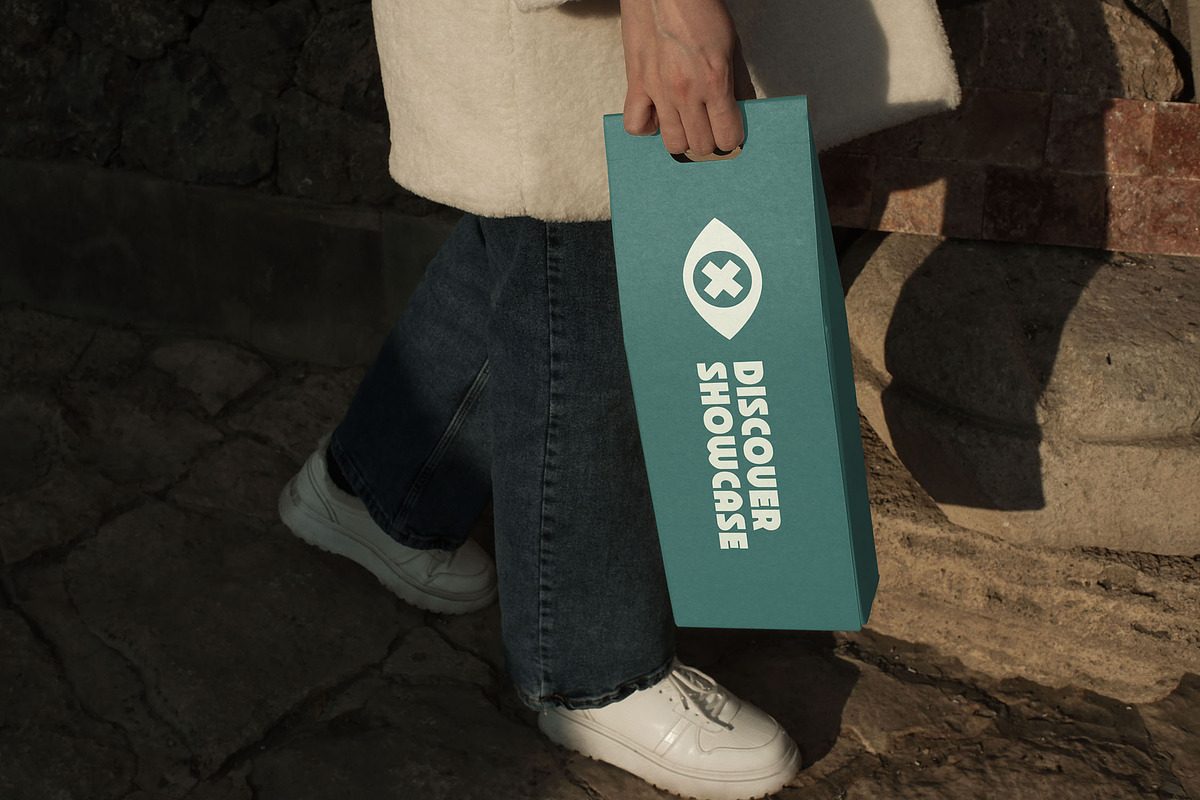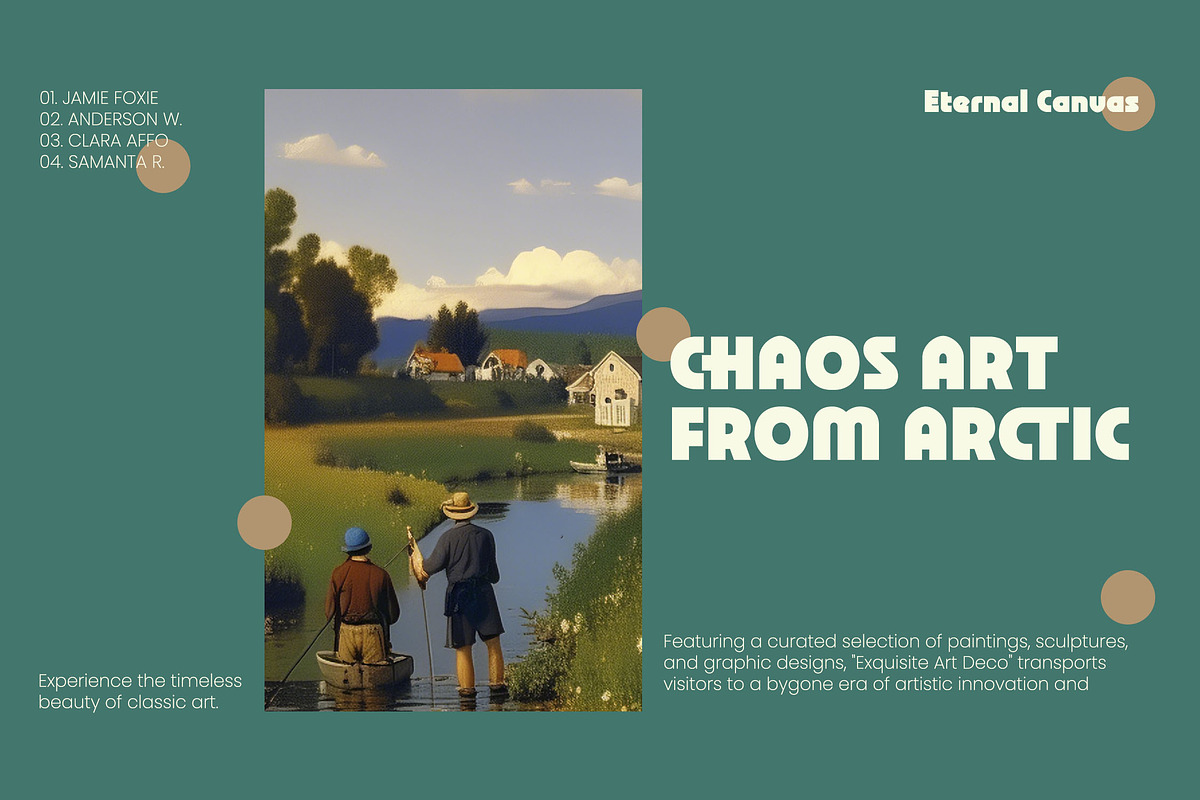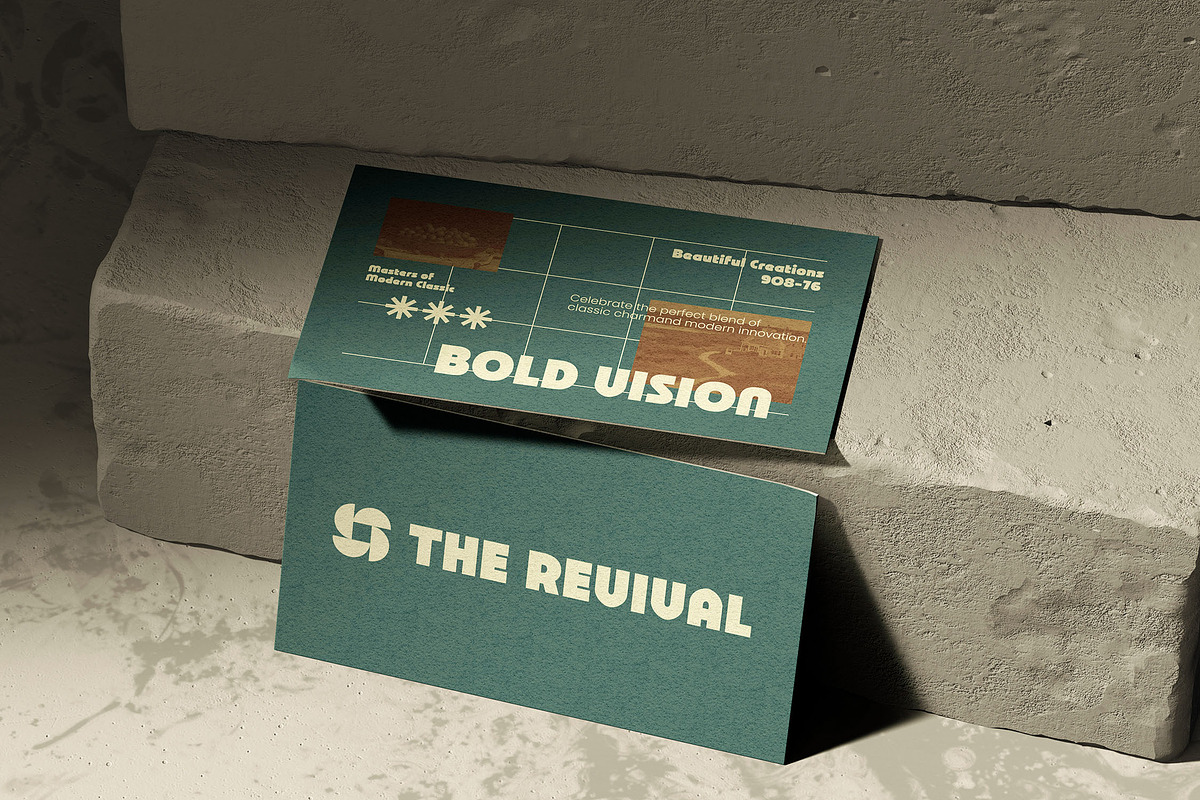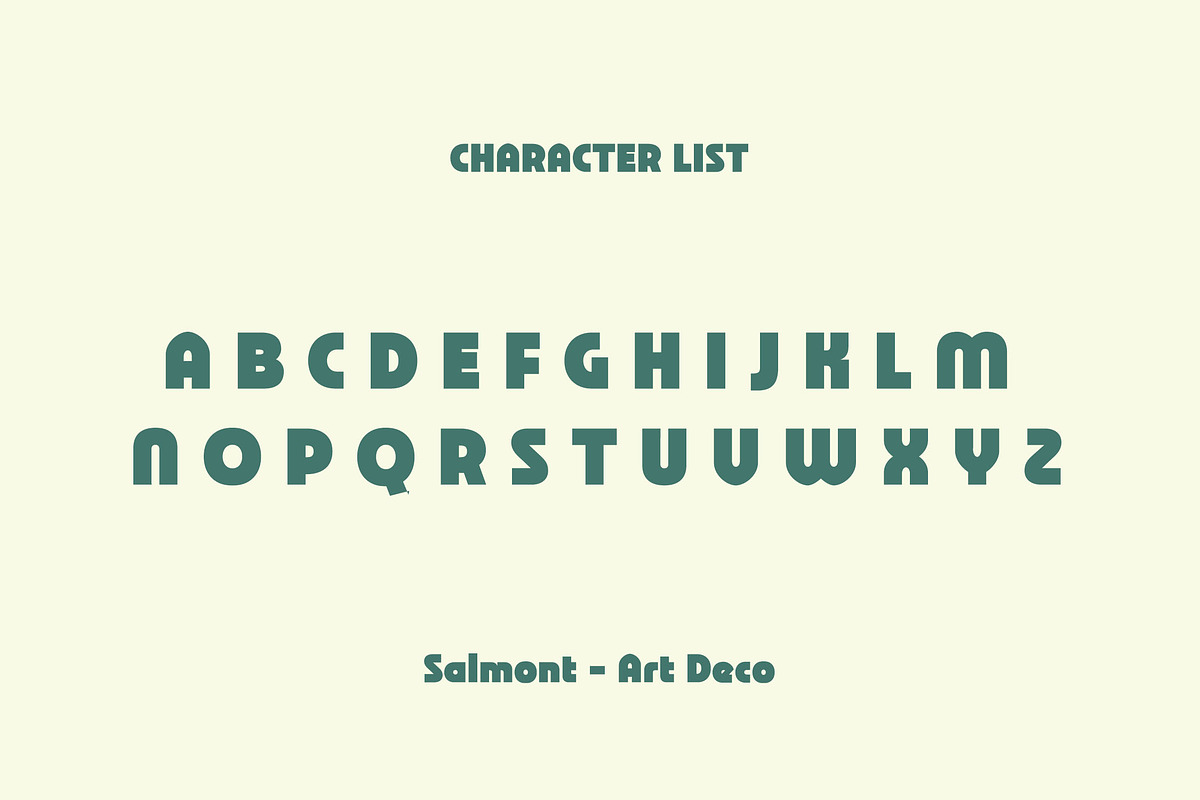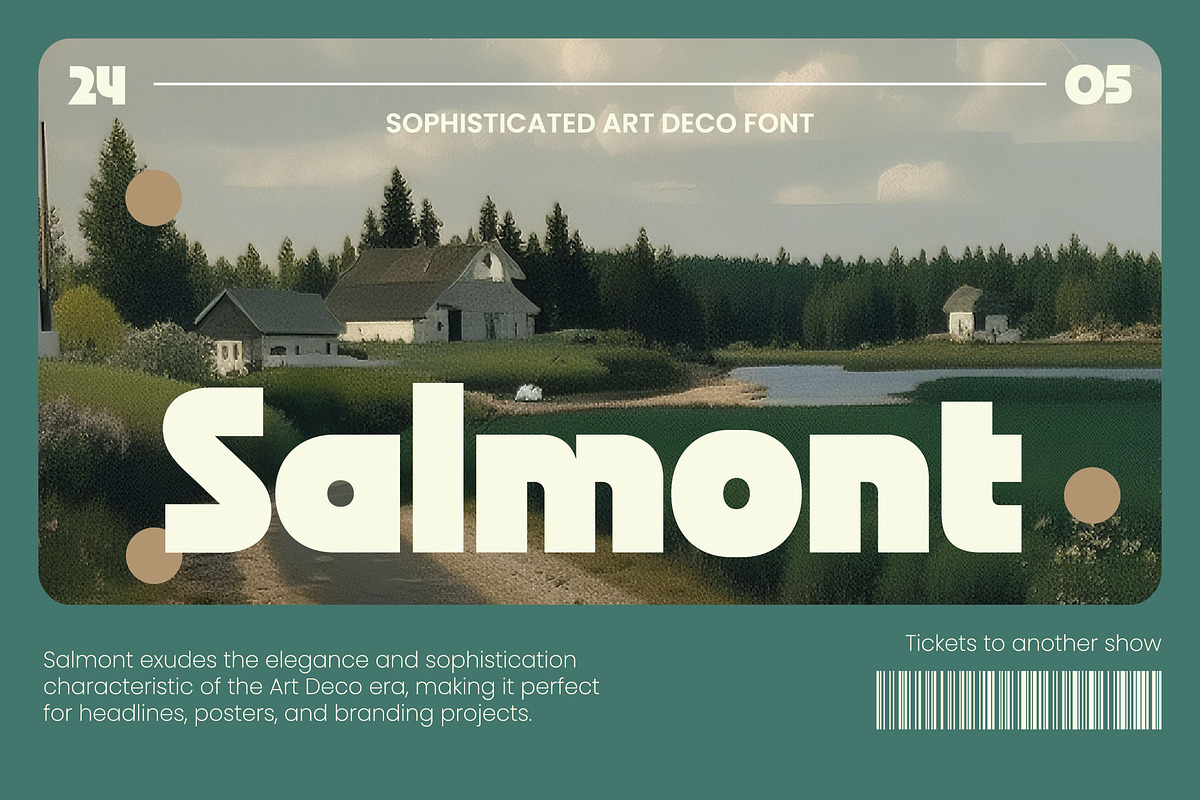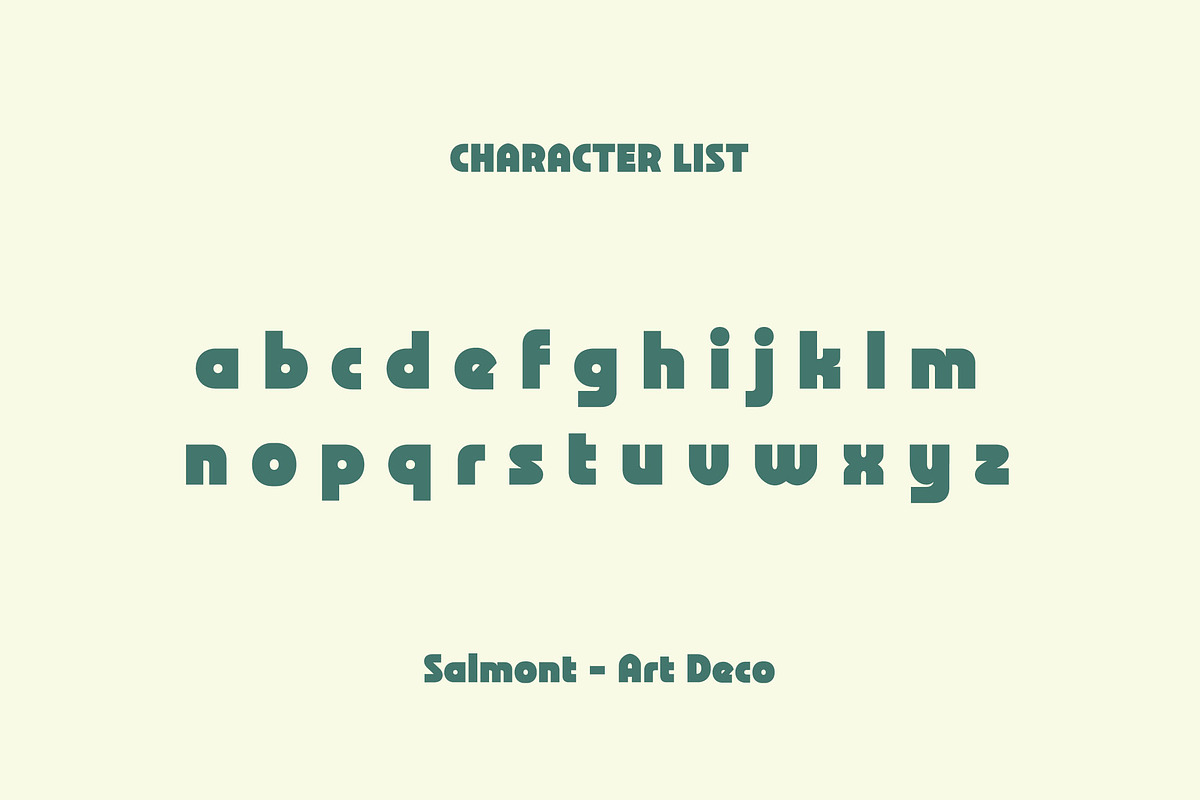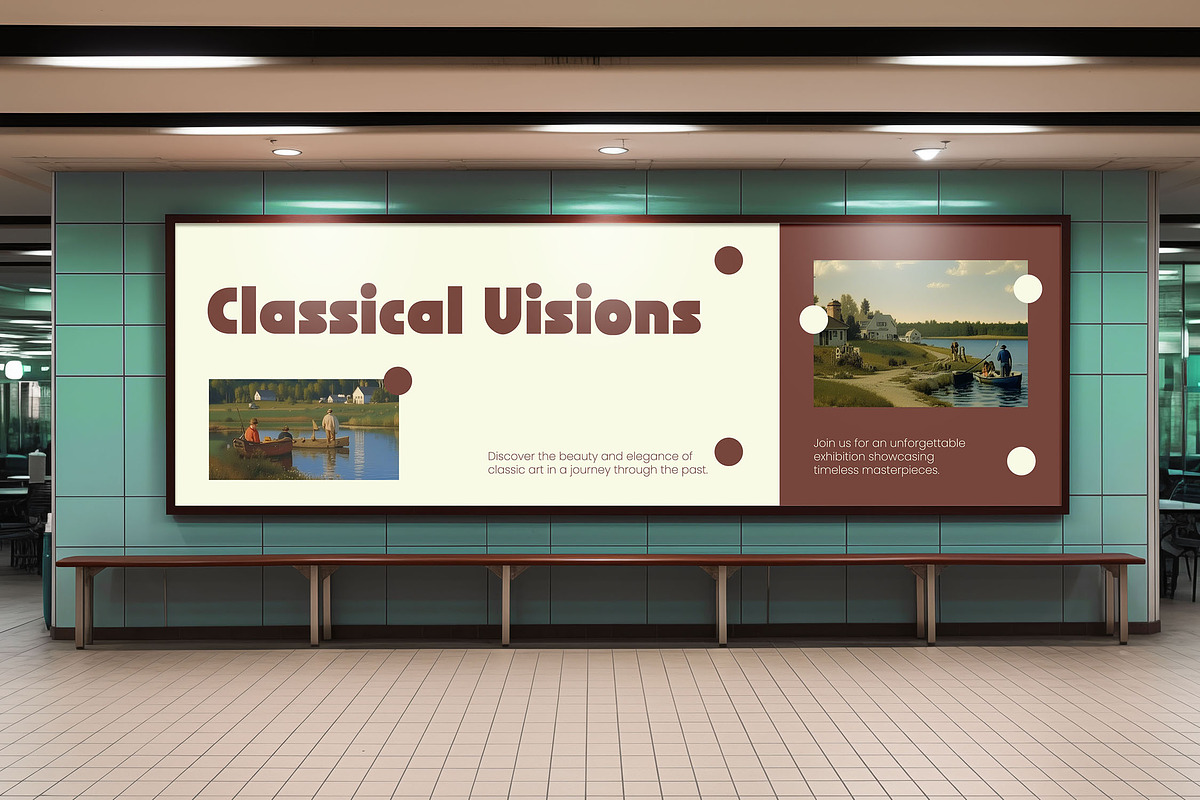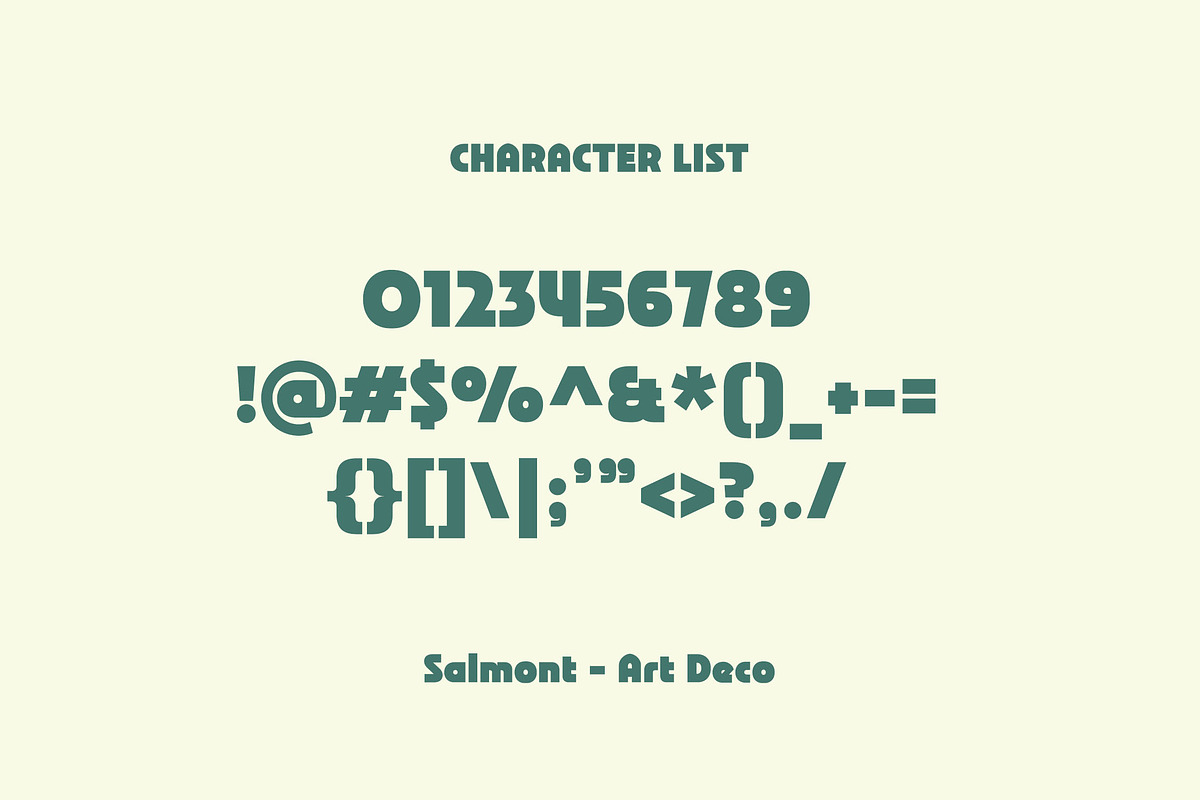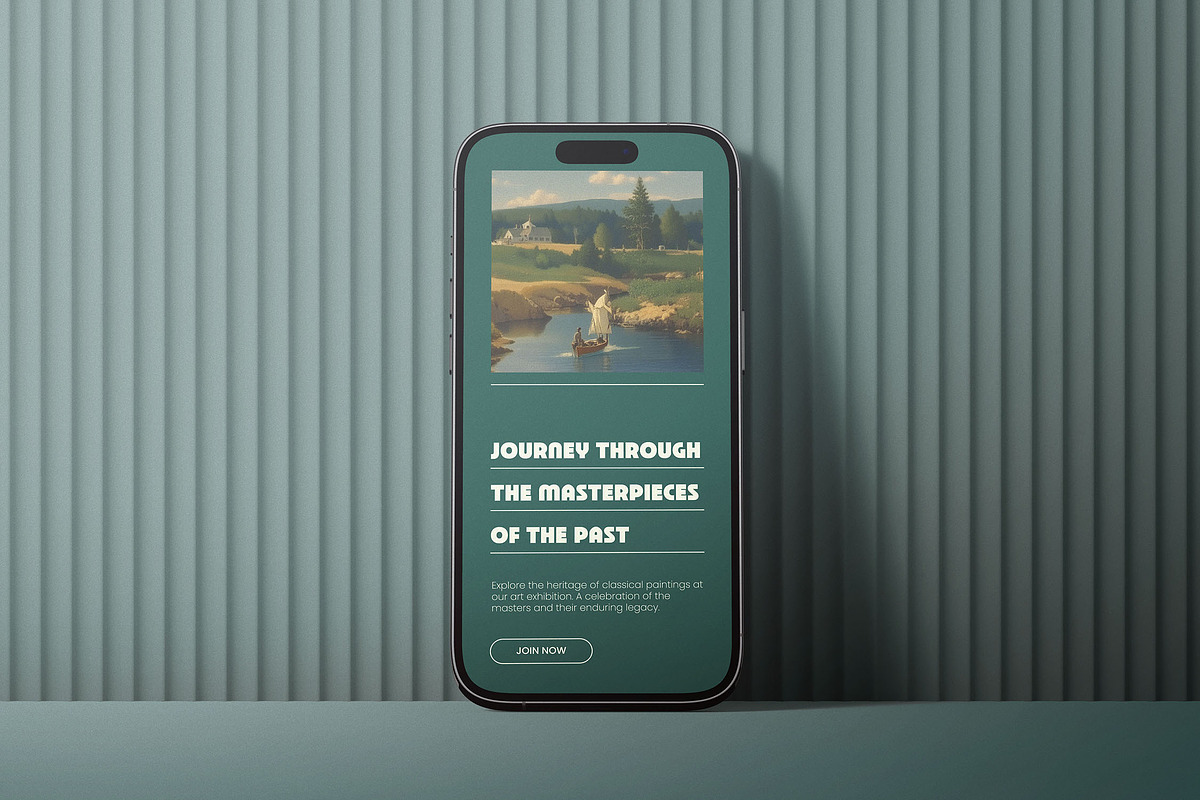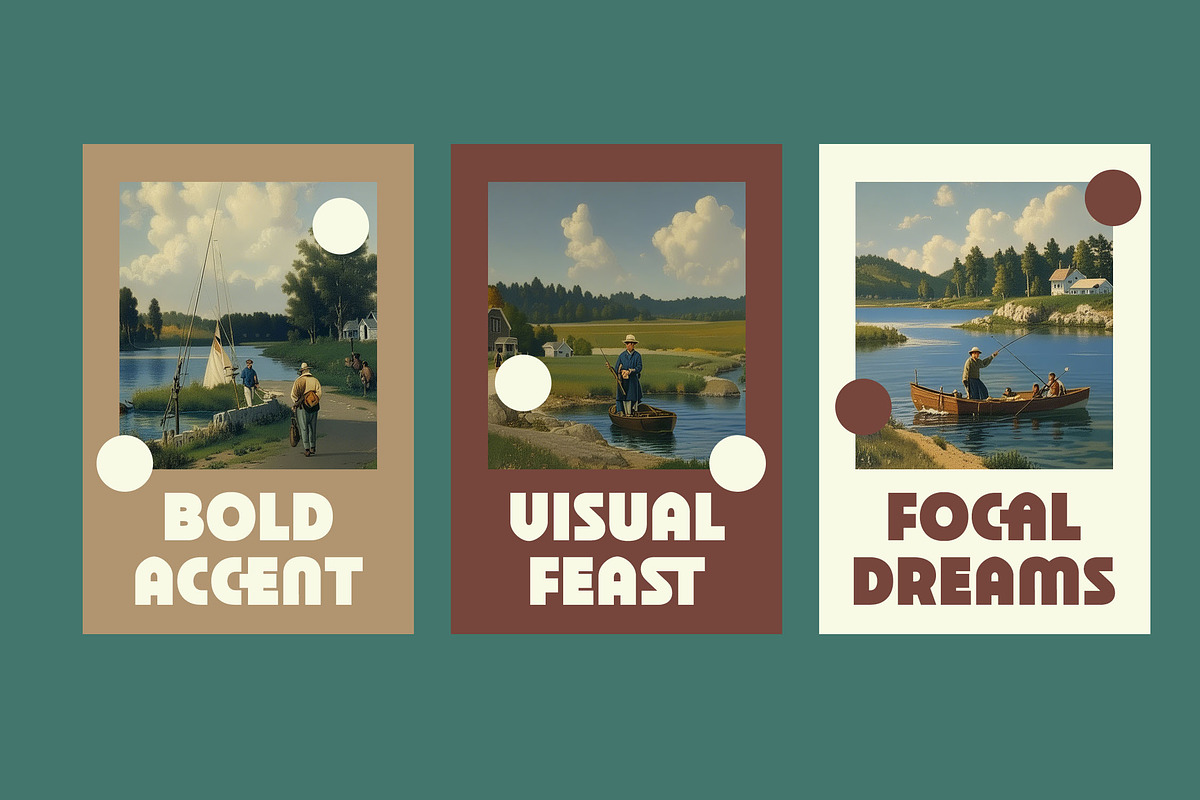
Salmont - Black Art Deco
Introducing Salmont, a striking Art Deco typeface designed with a black weight. Salmont exudes the elegance and sophistication characteristic of the Art Deco era, making it perfect for headlines, posters, and branding projects. This font stands out with its unique ligatures, adding a touch of uniqueness and creativity to your designs. Elevate your projects with the timeless charm and distinctive style of Salmont.